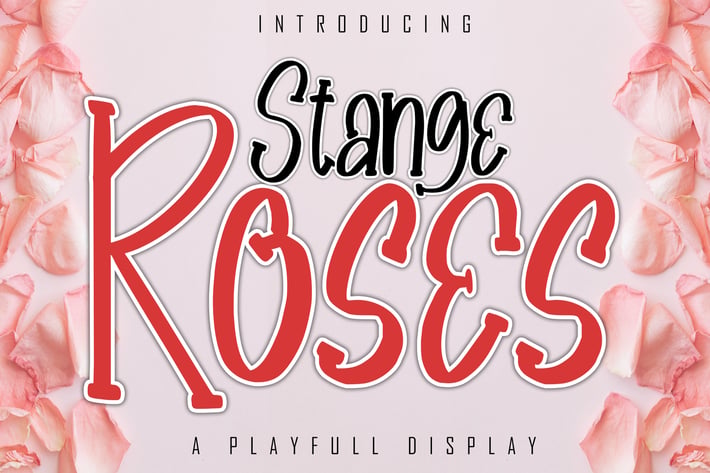
Stange Roses A Playfull Display Font
Our new product is called Stange Roses A Playful Font. Inspired by modern calligraphy, this font is a fun theme for serif calligraphy, posters, food, wedding, branding etc.
+ Uppercase & Lowercase letters\
+ Numbering and Punctuations\
+ Multilingual Support\
+ Basic Latin Language Support (AÀÁÂÃÄÅCÇDÐEÈÉÊËIÌÍÎÏÑOØÒÓÔÕÖUÙÜÚÛWYÝŸÆß )